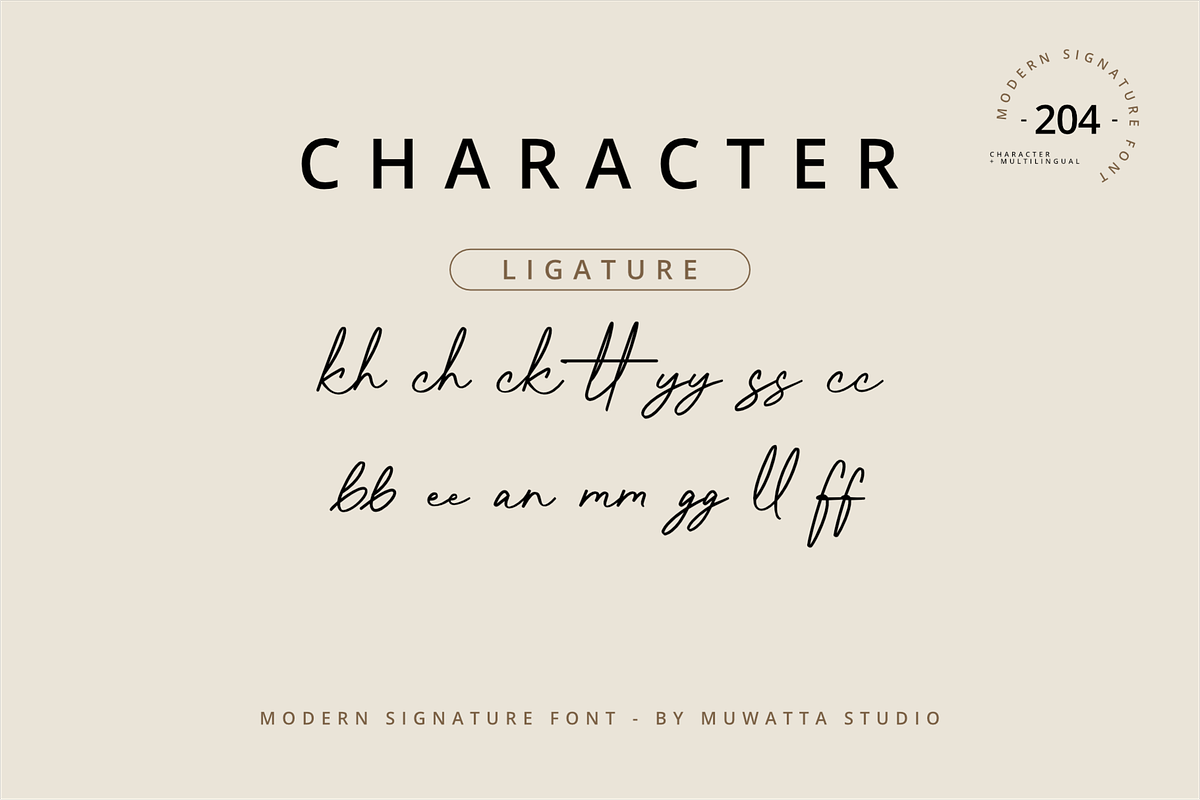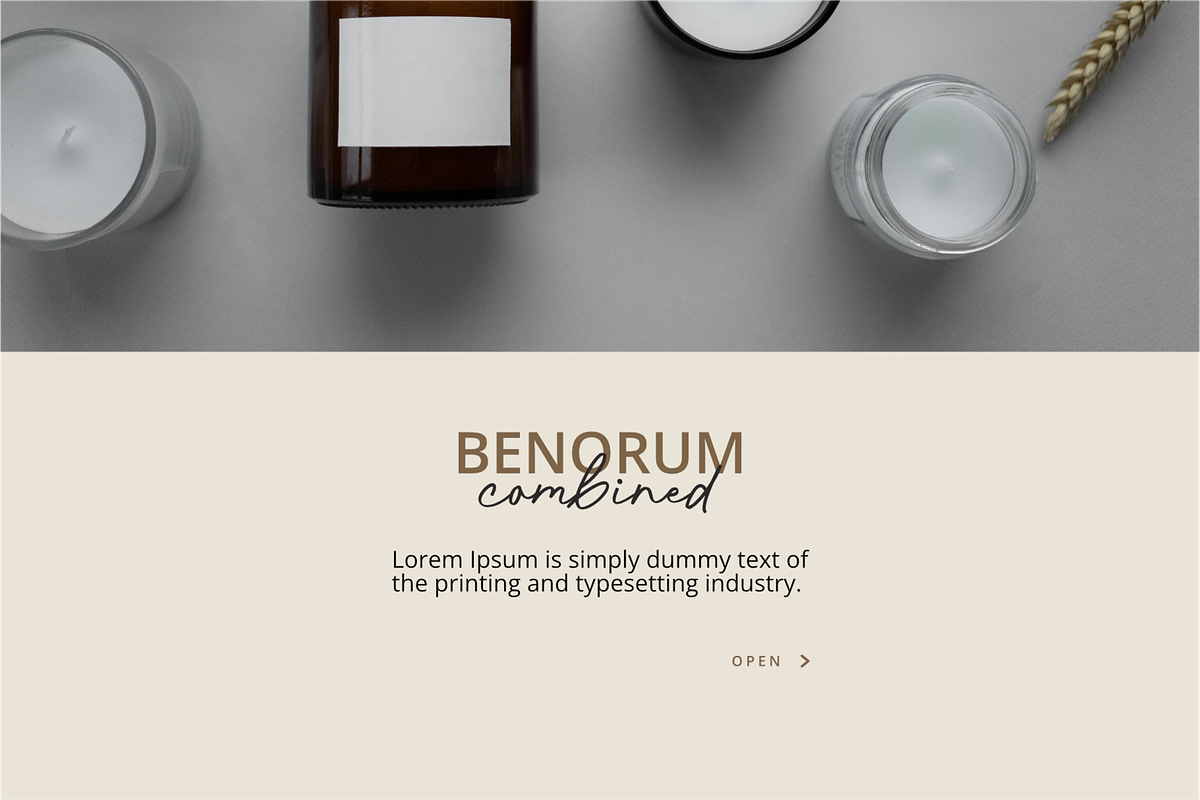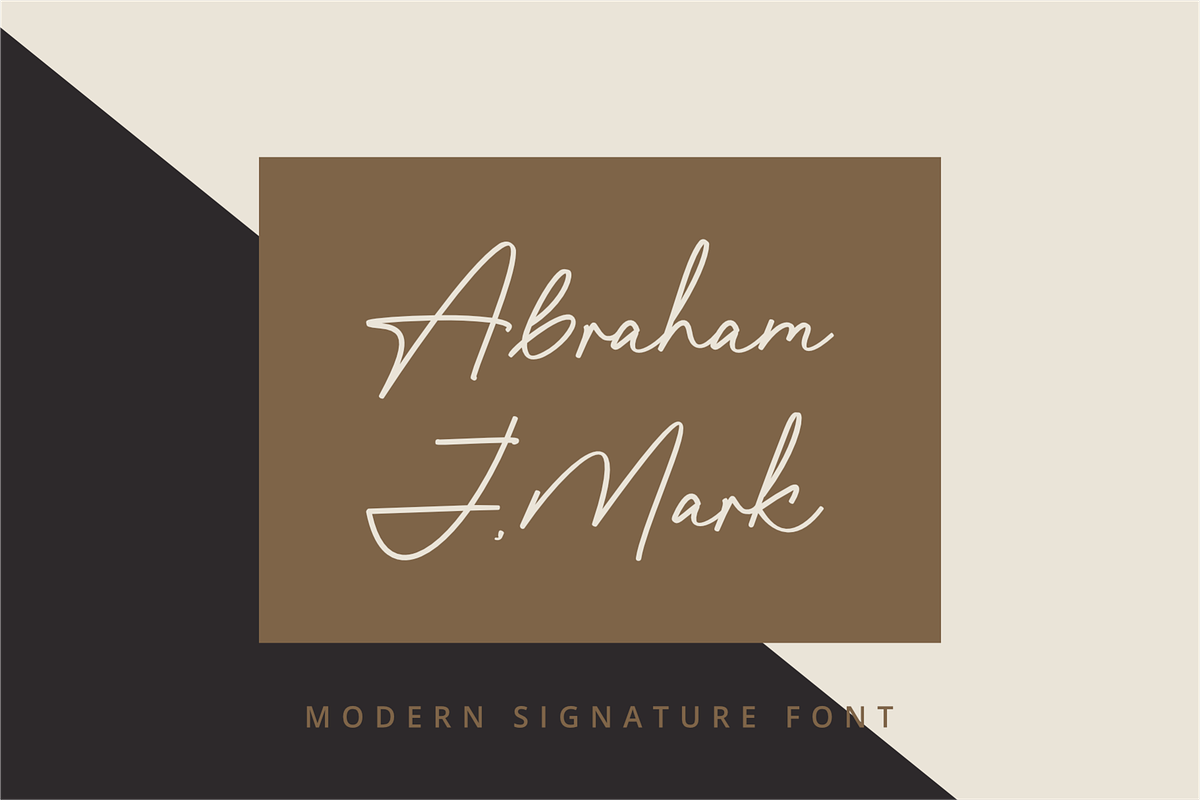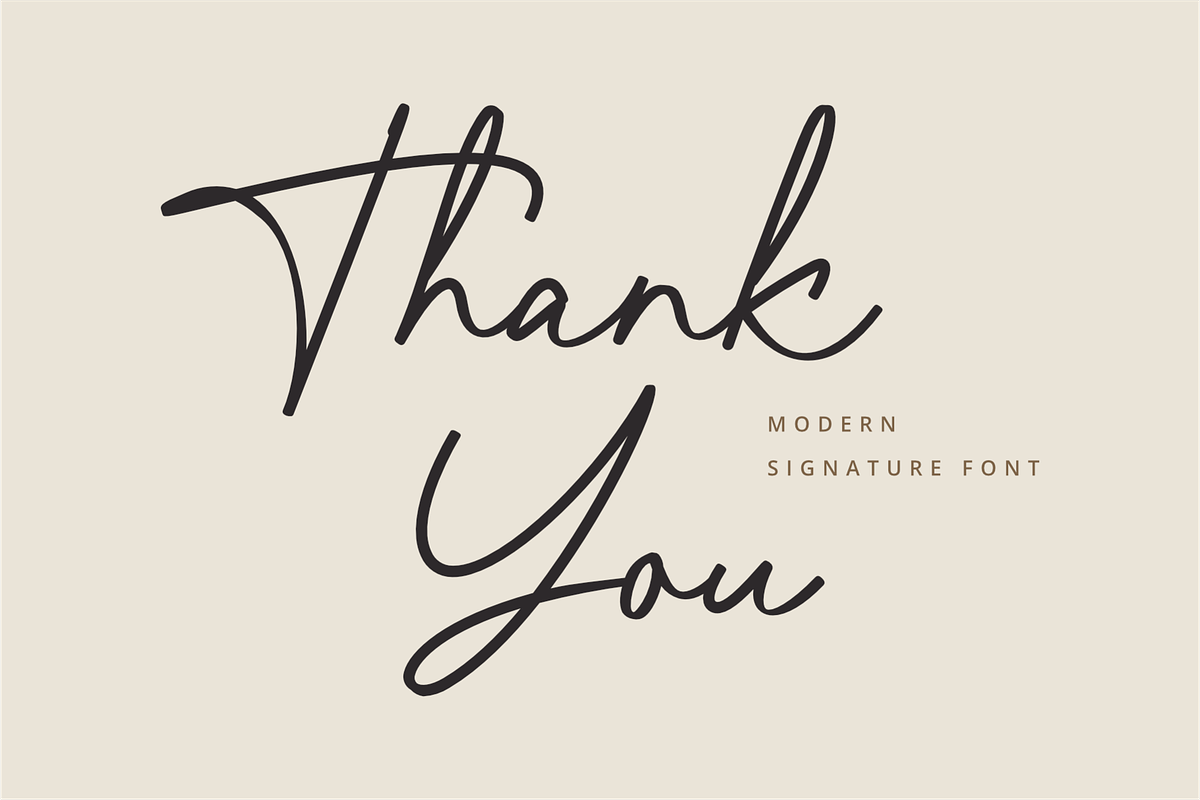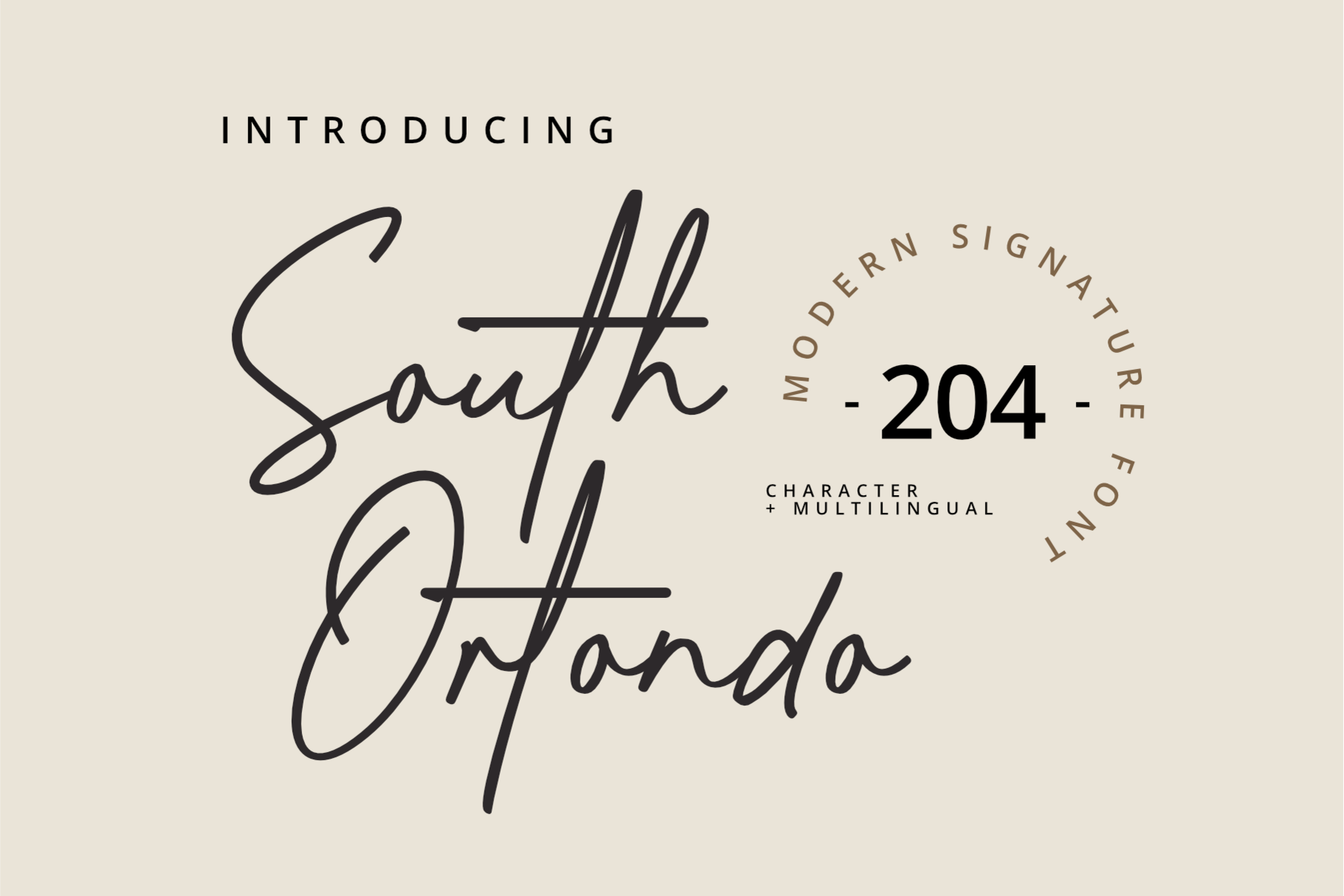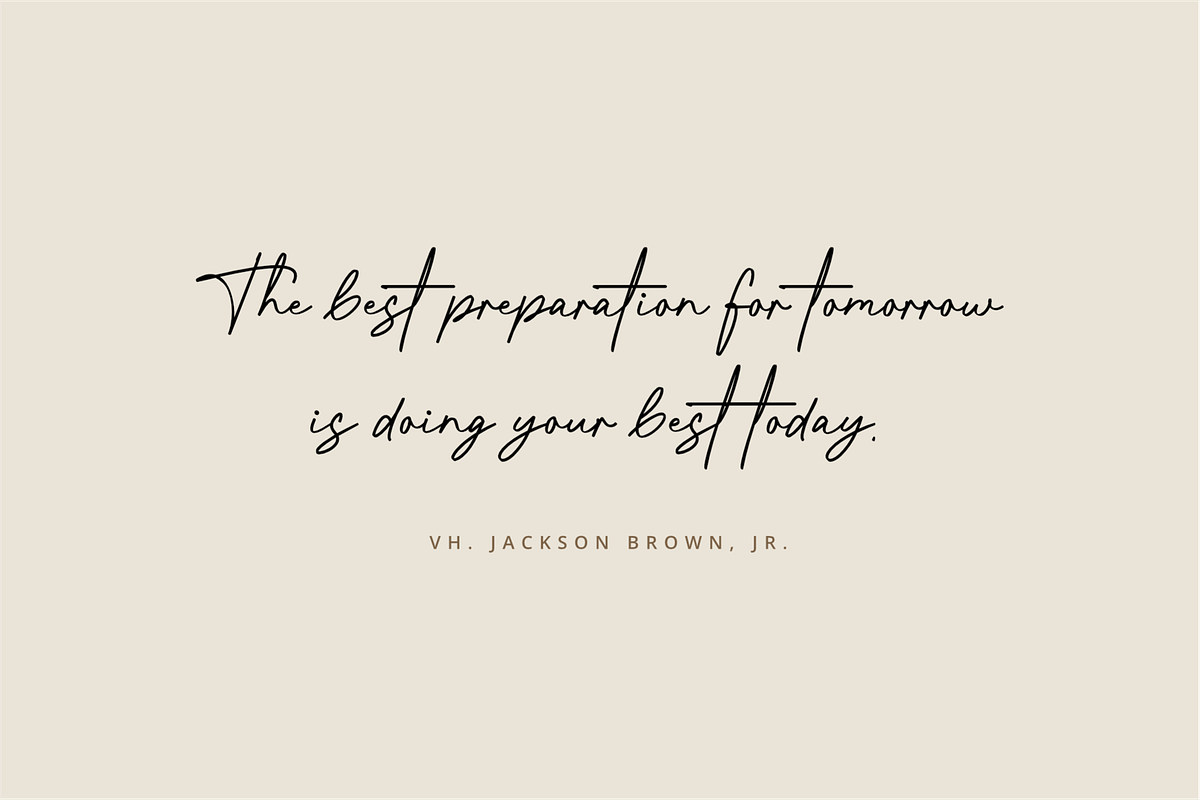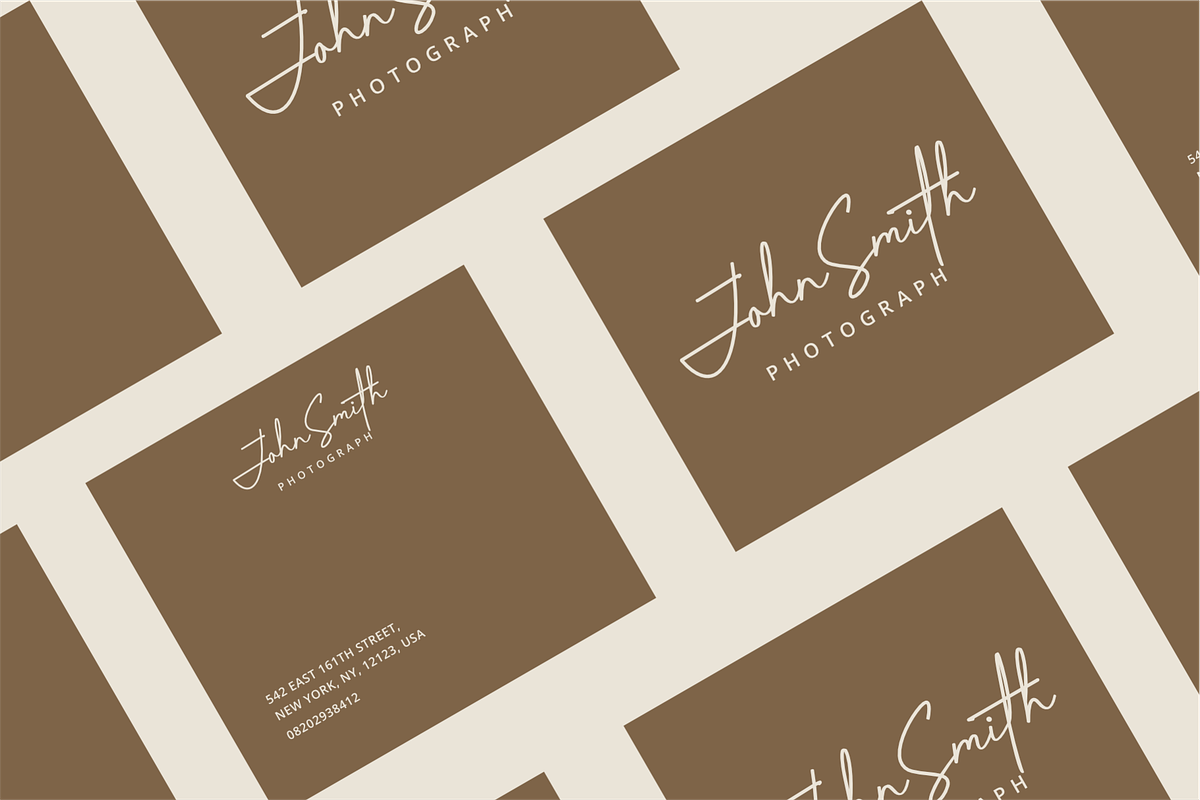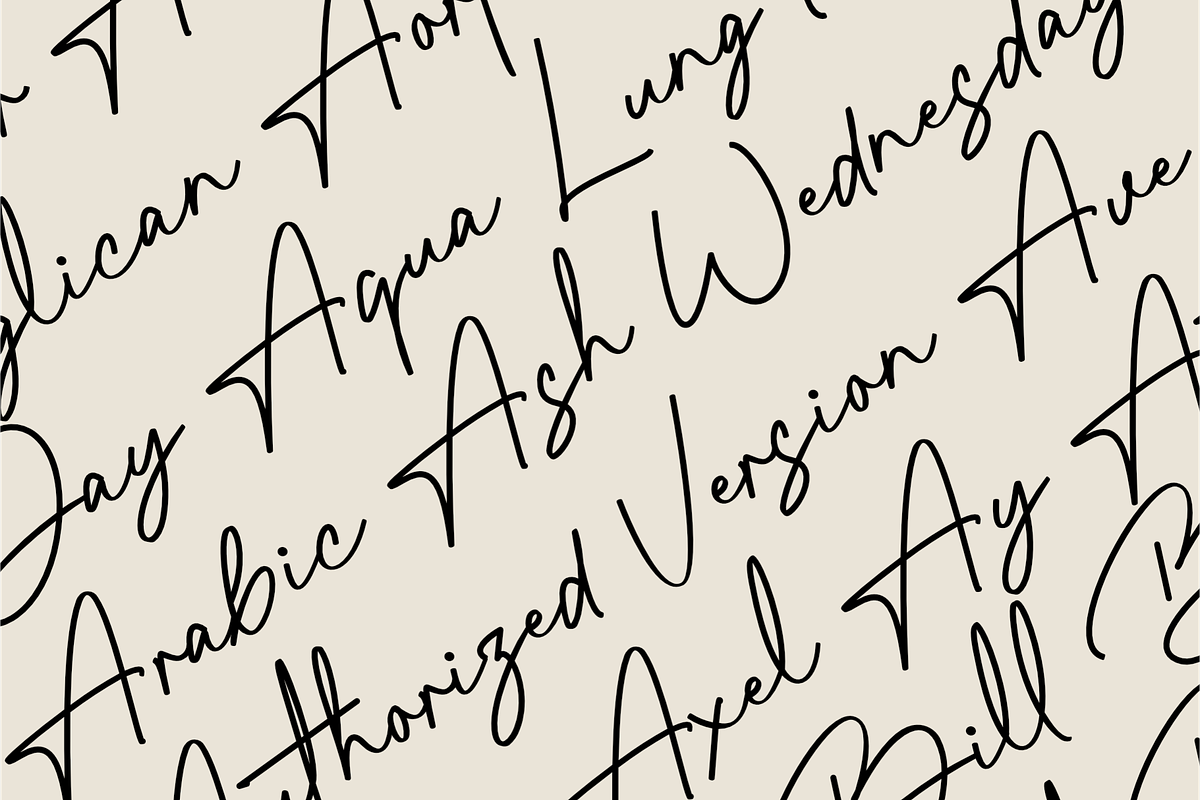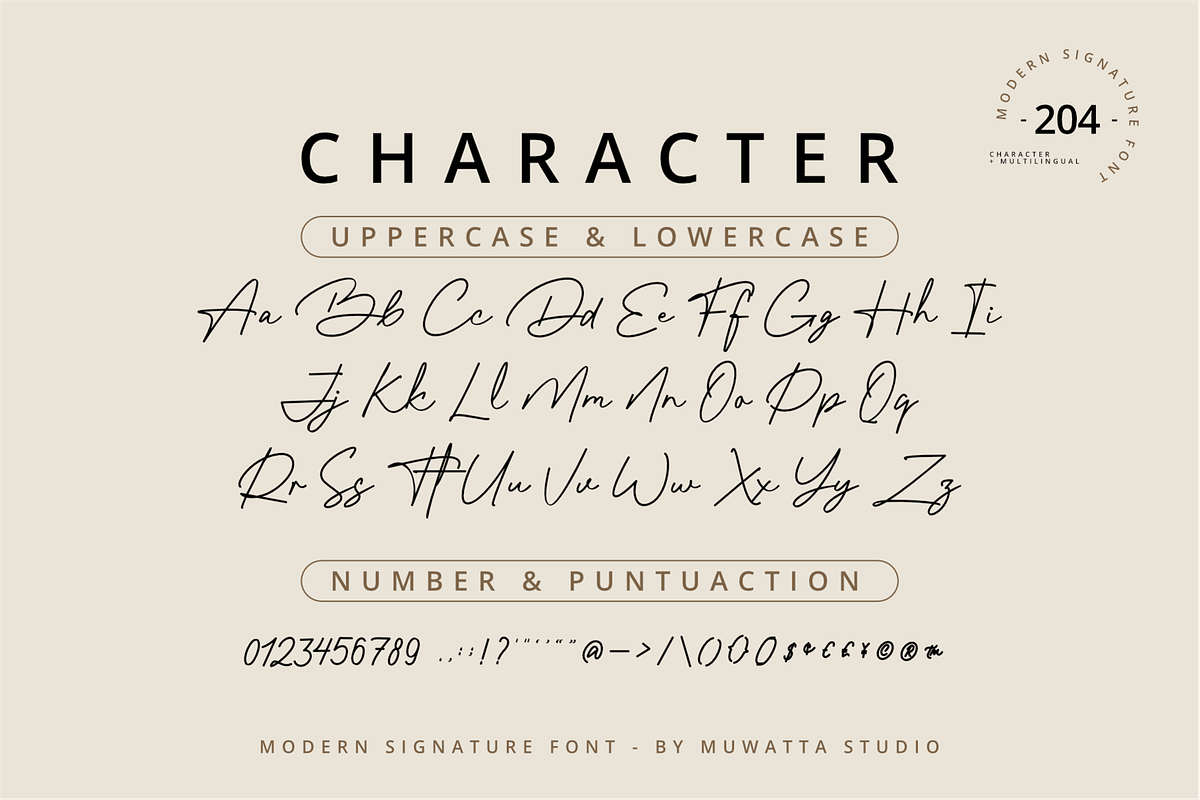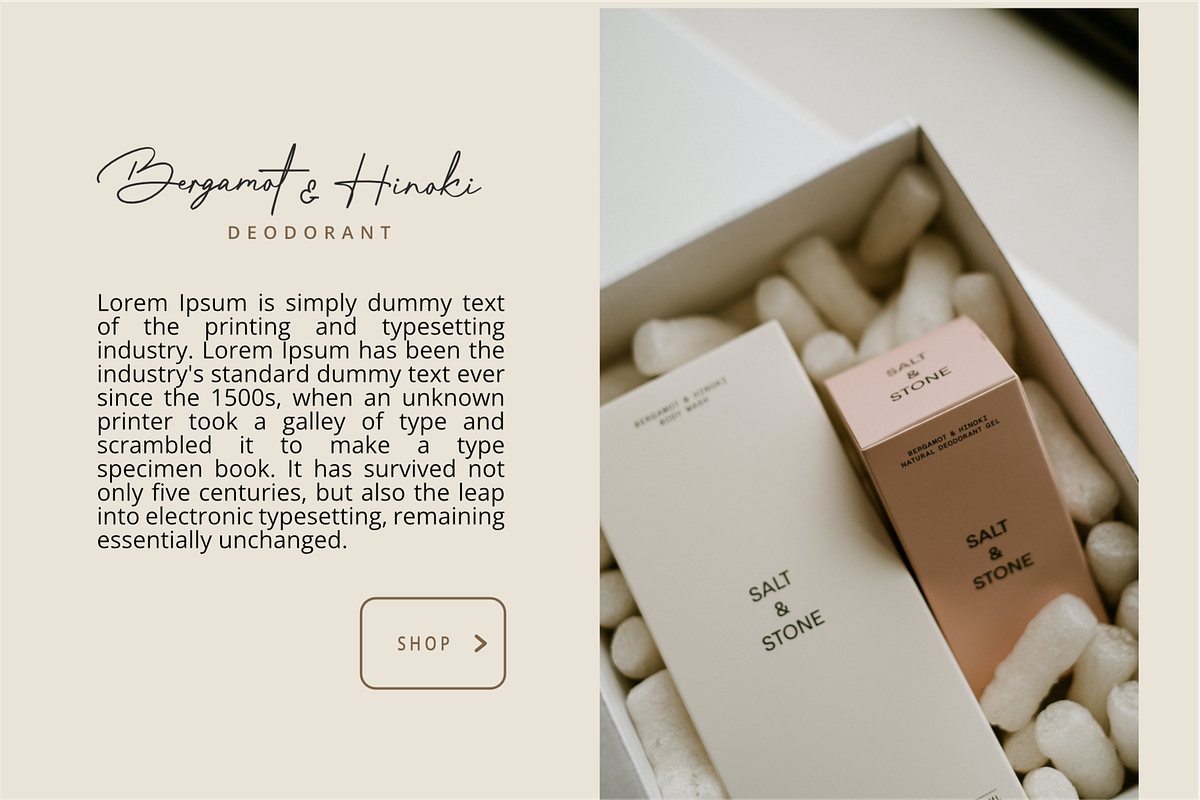
South Ortondo Font
South Ortondo is a modern script font designed to be tough and stylish. It works best in brand logos or together with sans or serif fonts.
-Full alphabet with Uppercase and Lowercase A-Z for script
-Numbers for all fonts
-Punctuation and symbols for all fonts
-Ligature Lowercase script
-Multilingual support all fonts